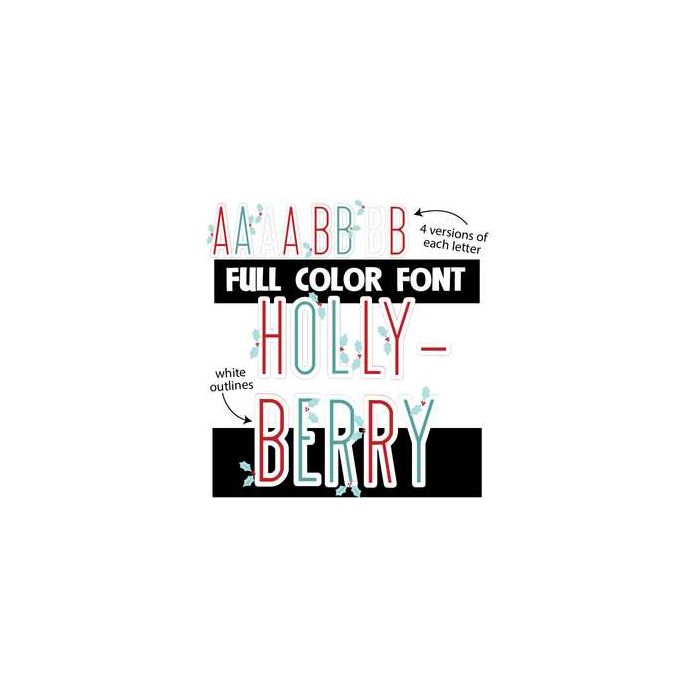
This full-color font features sans serif letters with white outlines and holly decor. The uppercase is red with white outlines and berries. The lowercase is teal with white outlines and berries and there are two alt cases you can access with your system's character map (teal with berries and plain white without berries). This font works best for titles, displays, posters and more. Please note color fonts will show as black in non compatible programs. This font type is compatible with Silhouette Studio.